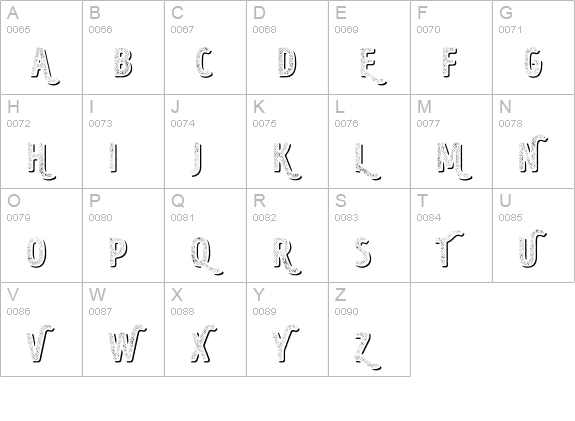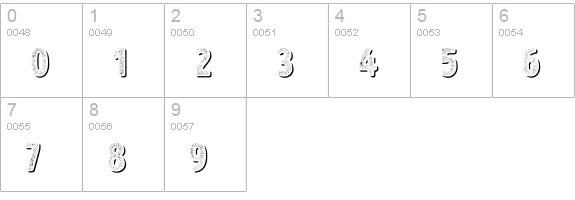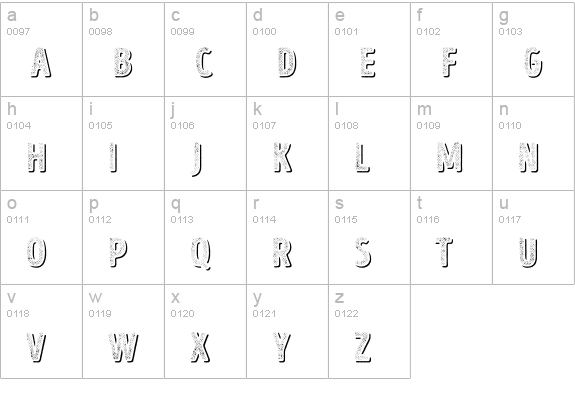
Intro Head H UC H2 Shade Font Details
Intro Head H UC H2 Shade font is a modern and stylish typeface that exudes sophistication and elegance. With its bold and eye-catching design, this font is perfect for creating impactful headers and titles. The unique shading detail adds depth and dimension to your text, making it stand out from the crowd. Best of all, Intro Head H UC H2 Shade font is available for free download at FontsMarket.com. Whether you're working on a professional project or a personal design, this font is a versatile choice that will elevate your work to the next level. Don't miss out on the opportunity to add this stunning font to your collection today!